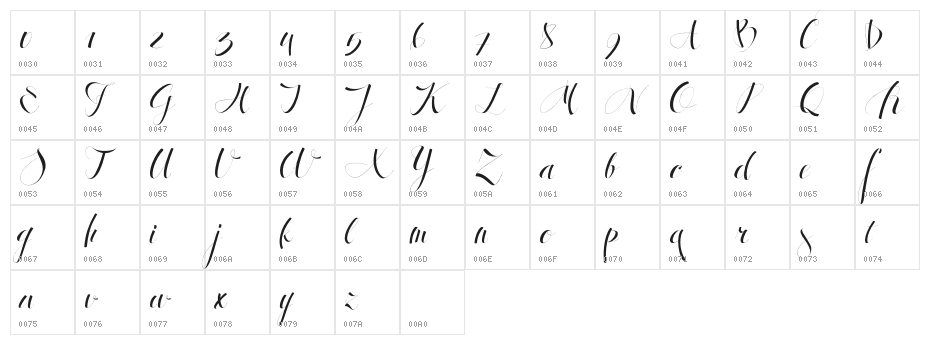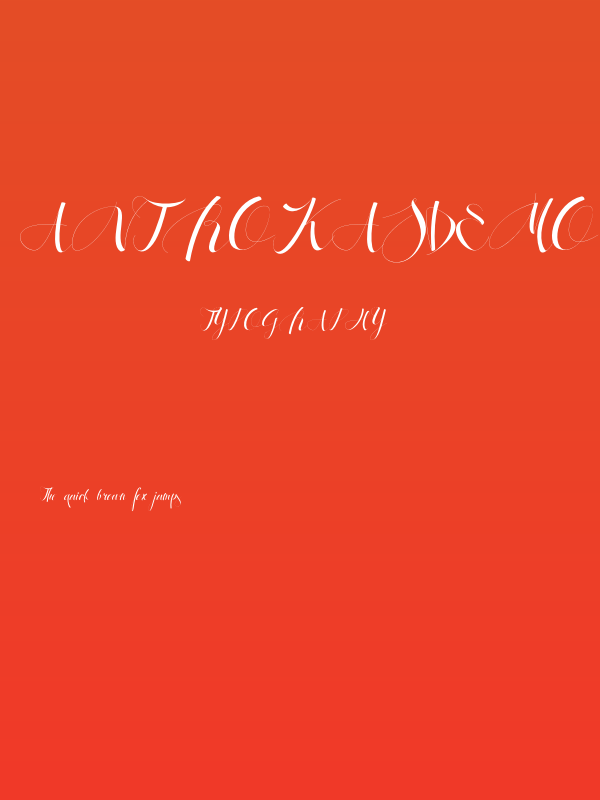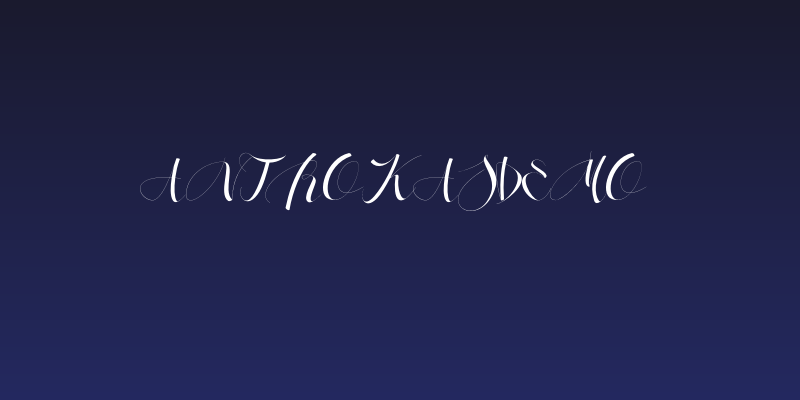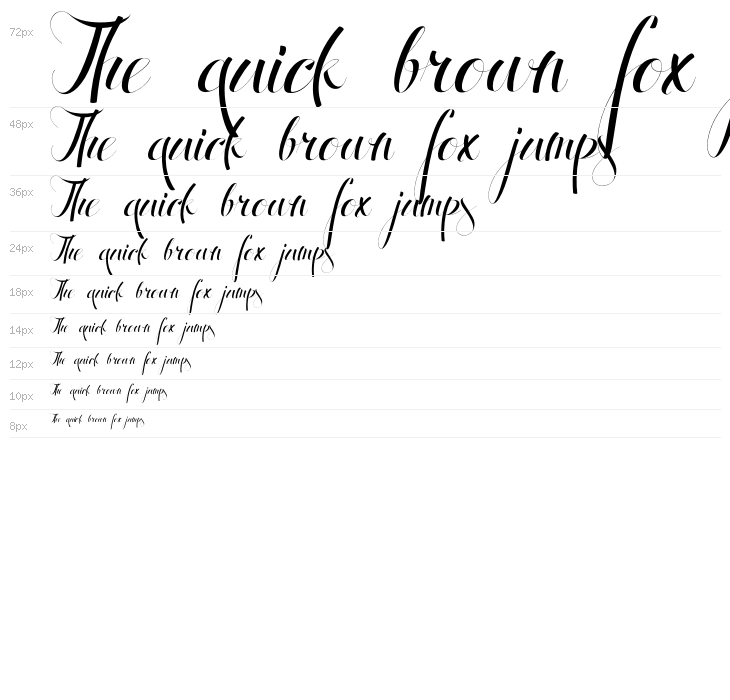
Antrokasdemo Font
Antrokasdemo Description
This font features an elegant and flowing script style, characterized by its graceful curves and sophisticated flair. The uppercase letters exhibit a refined balance between thick and thin strokes, creating a sense of movement and fluidity. The lowercase letters maintain this fluidity with a slightly more compact form, enhancing readability while preserving the font's artistic nature. The numerals are designed with a consistent style, integrating seamlessly with the alphabet. This font's overall aesthetic is both modern and timeless, making it suitable for a variety of creative applications.
| Overall Style | Elegant, Artistic |
| Proposed Projects | Ideal for wedding invitations, luxury branding, elegant packaging, and artistic posters. |